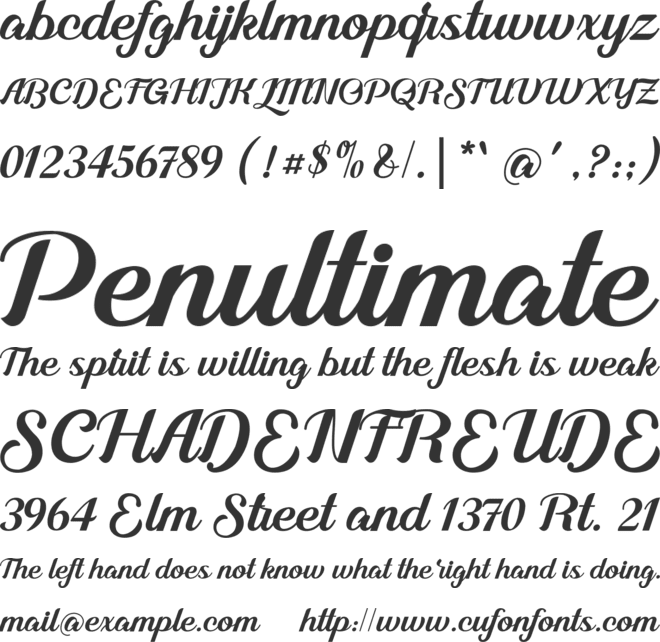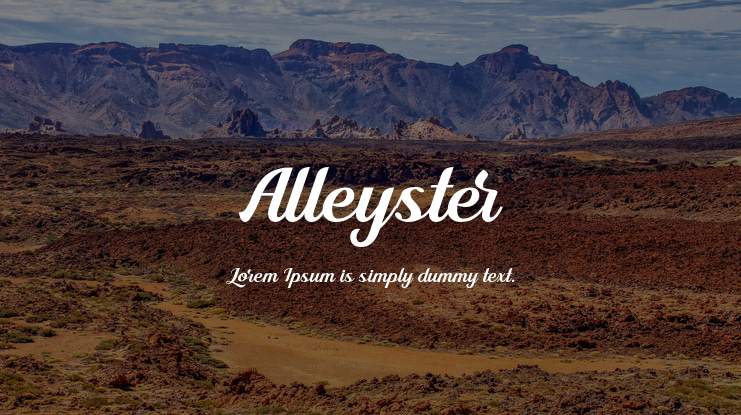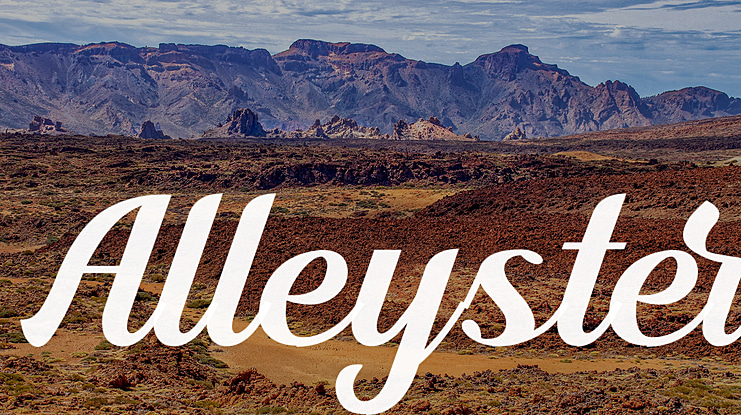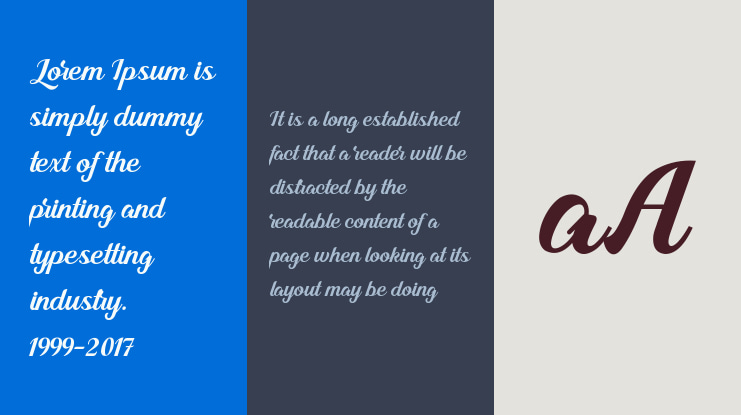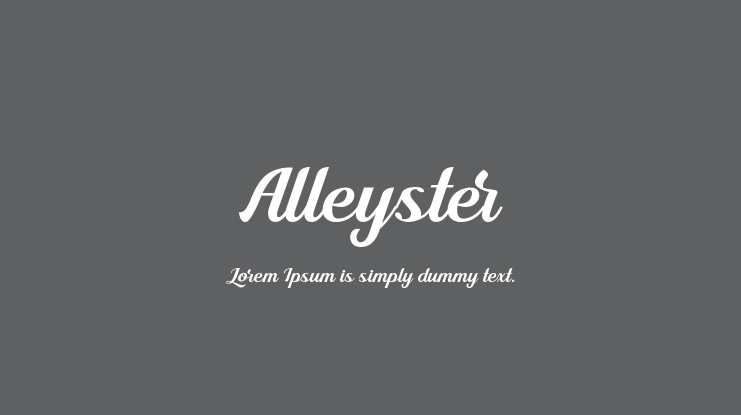
Alleyster Font
ALLEYSTER is the lovely curly script font. We make it wholeheartedly :) We present it to those of you who like modern calligraphy styles, scripts, and hand lettering. Inside there are more than 400 glyphs that we have arranged in such a way as to produce an appearance that is pleasing to the eye and easy to read. Alleyster is perfect for logotypes, headlines, titles, quotes, invitations, etc.